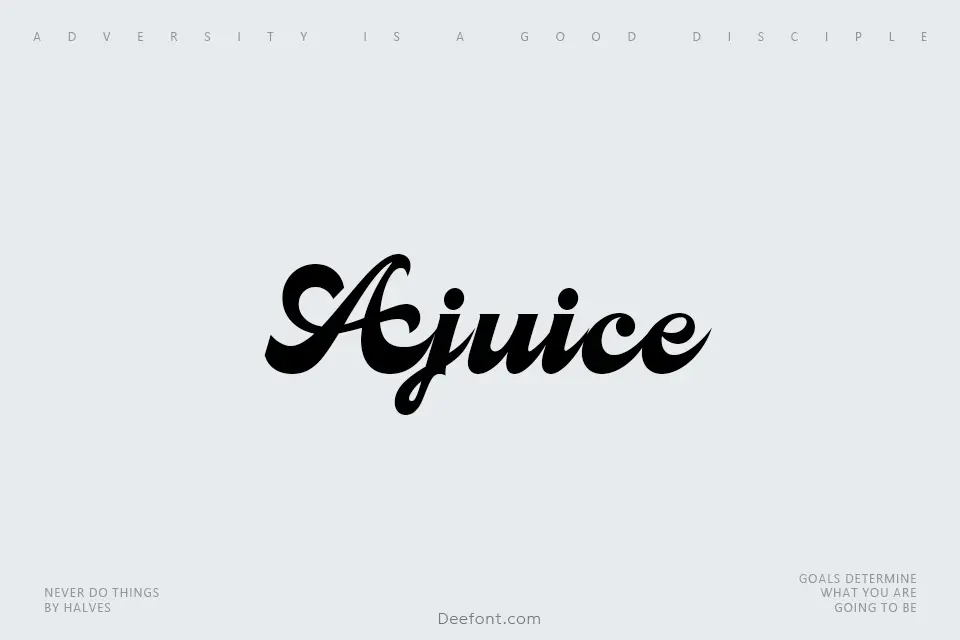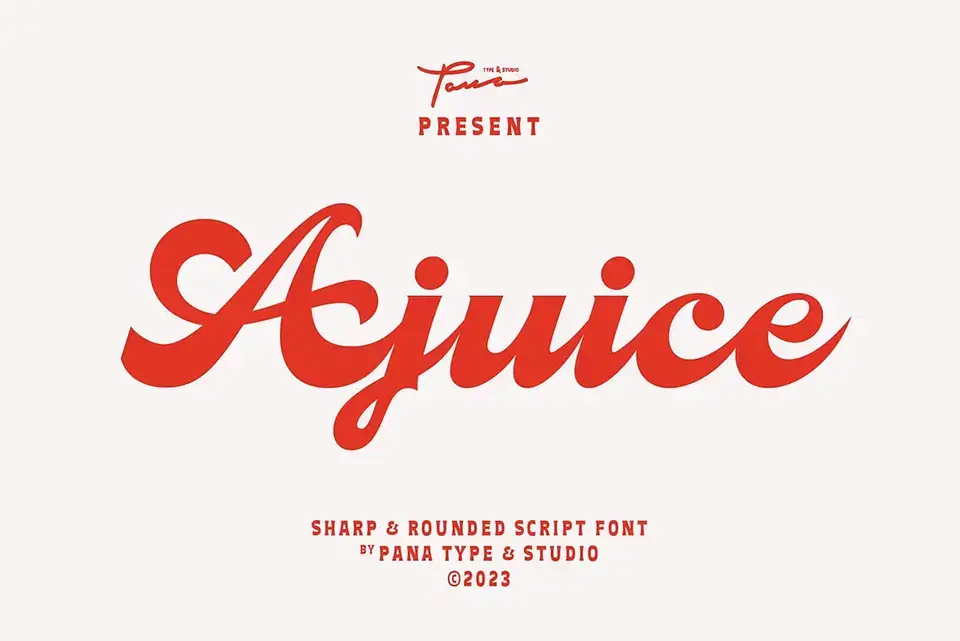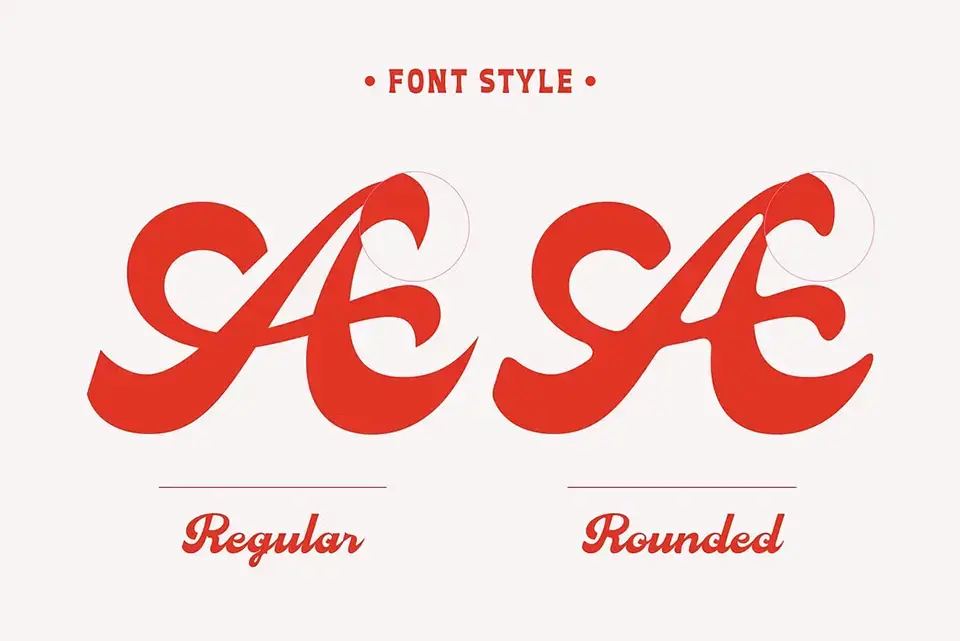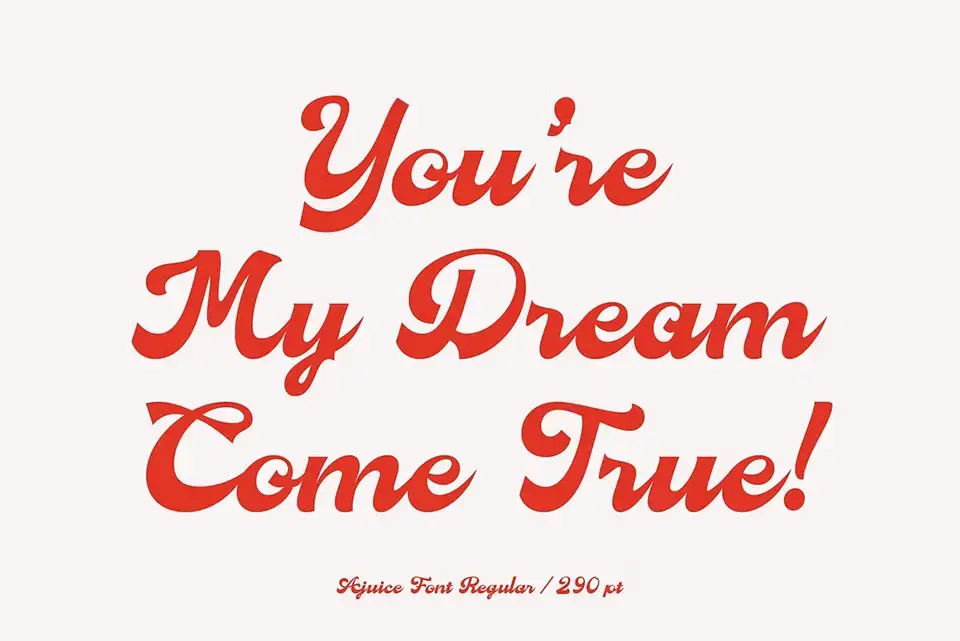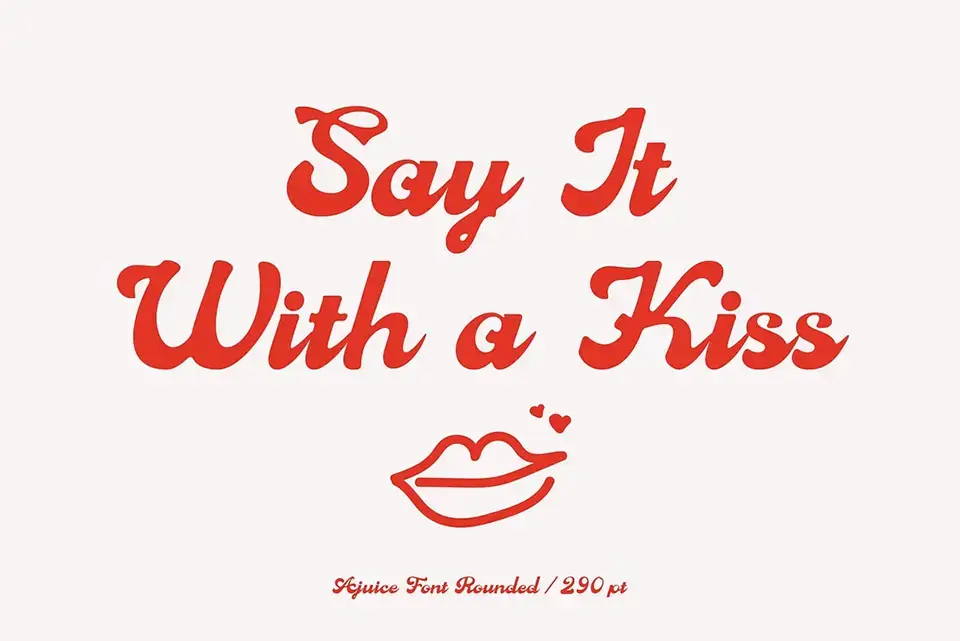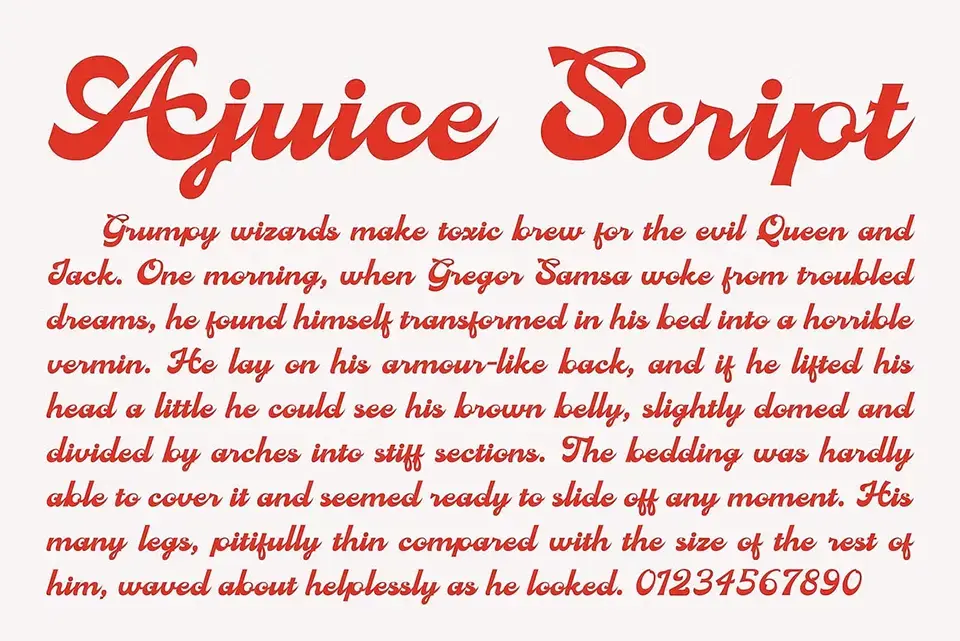
Ajuice Font
Ajuice is a high-contrast script font designed by Panatype Studio with two distinct styles: Regular and Rounded. This elegant typeface features flowing cursive strokes, romantic curves, and carefully crafted letterforms that evoke modern vintage aesthetics. Ideal for branding materials, wedding invitations, product packaging, movie titles, and advertising posters requiring sophisticated script typography. The font’s bold presence and soft elegance make it versatile for both digital and print applications.